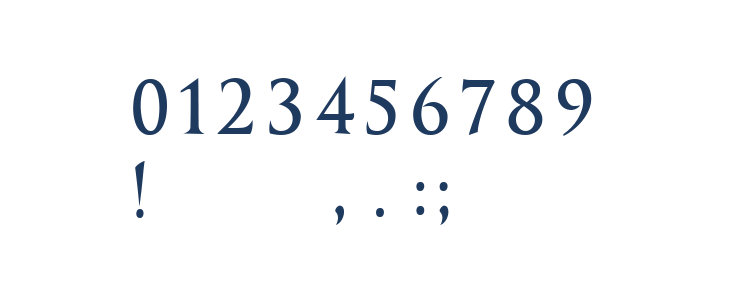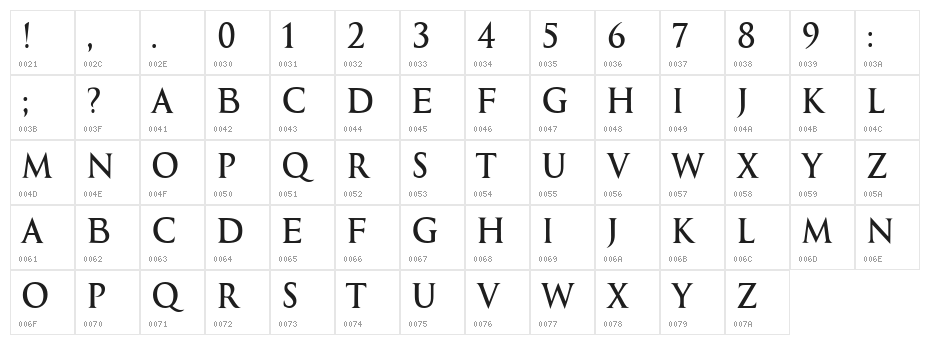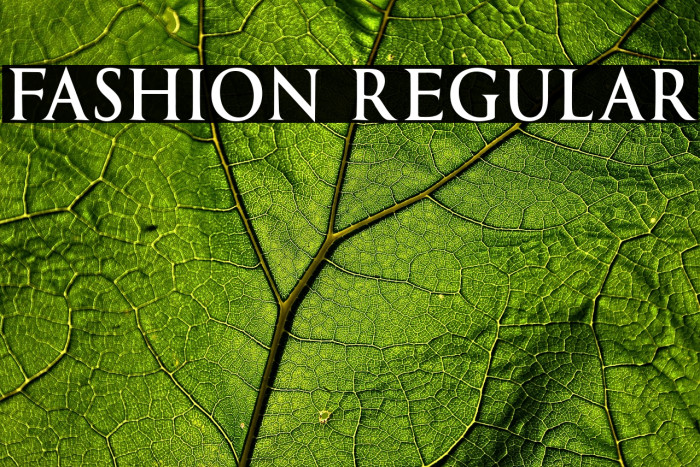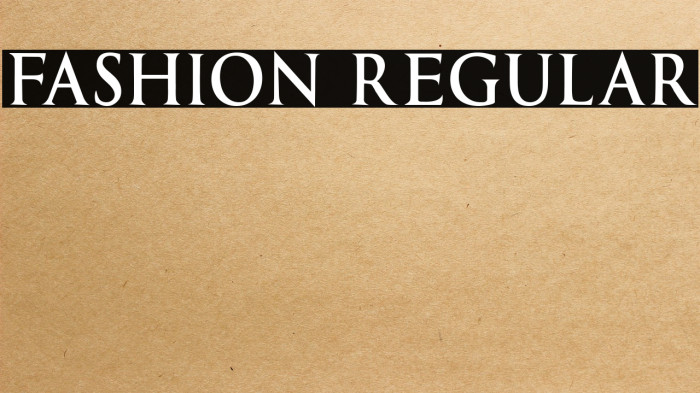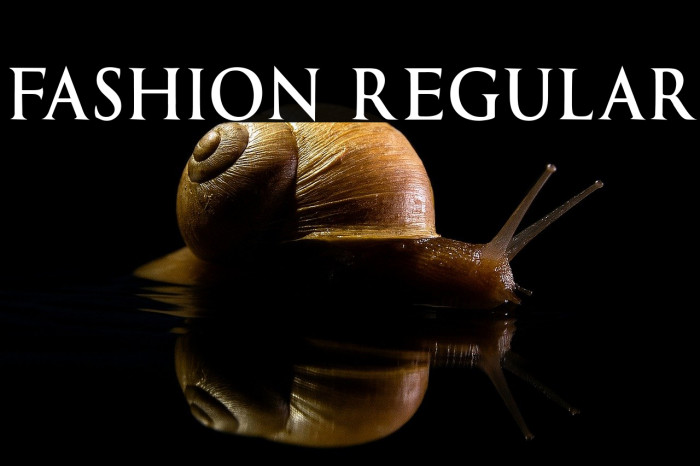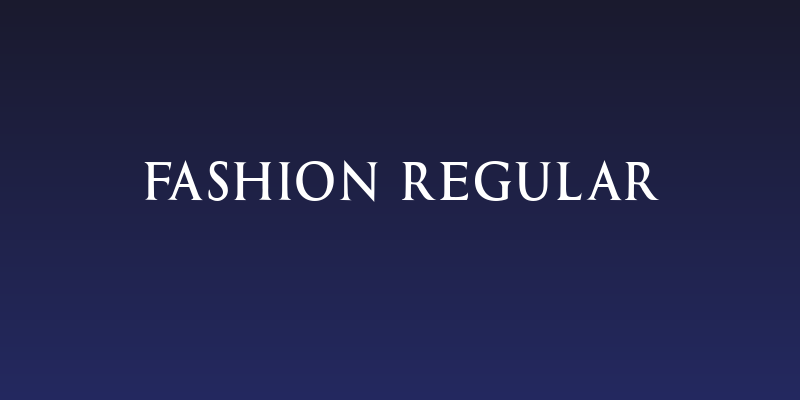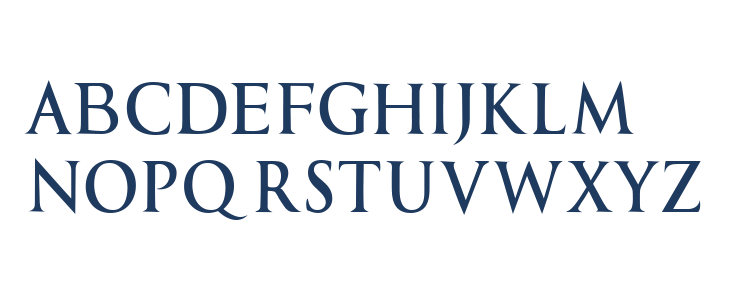
Fashion Regular Font
Fashion Regular Description
This font features a classic serif style with elegant, tapered strokes and a refined appearance. The characters exhibit a slight contrast in stroke width, giving them a sophisticated and timeless look. The serifs are sharp and pronounced, adding a touch of formality and tradition. The overall design is balanced and harmonious, making it suitable for a variety of formal and professional applications. The numbers are consistent with the letterforms, maintaining the same level of elegance and readability. Special characters are designed to complement the overall aesthetic, ensuring a cohesive look across all text elements.